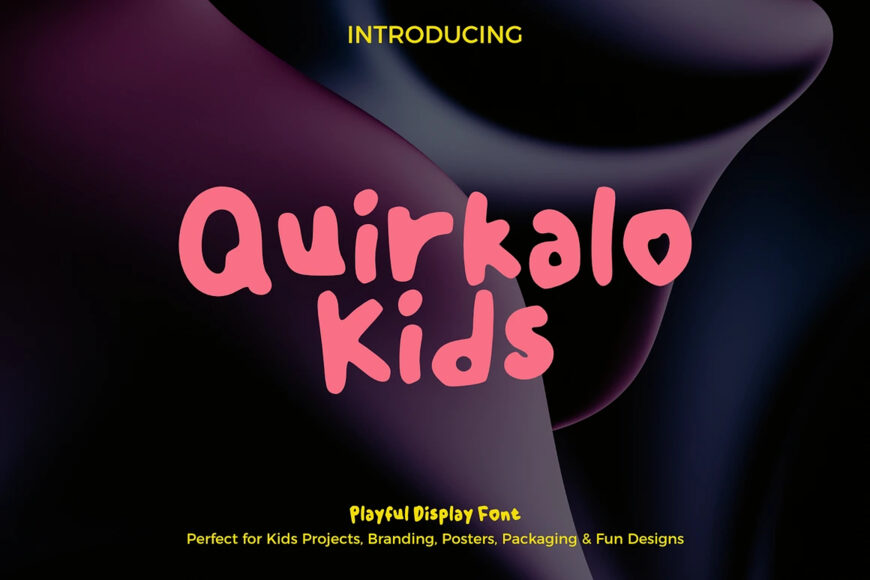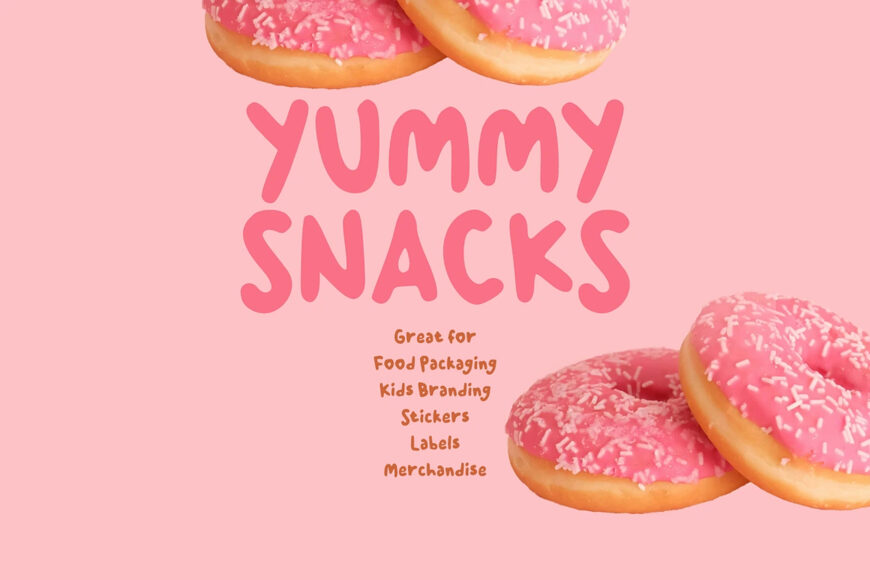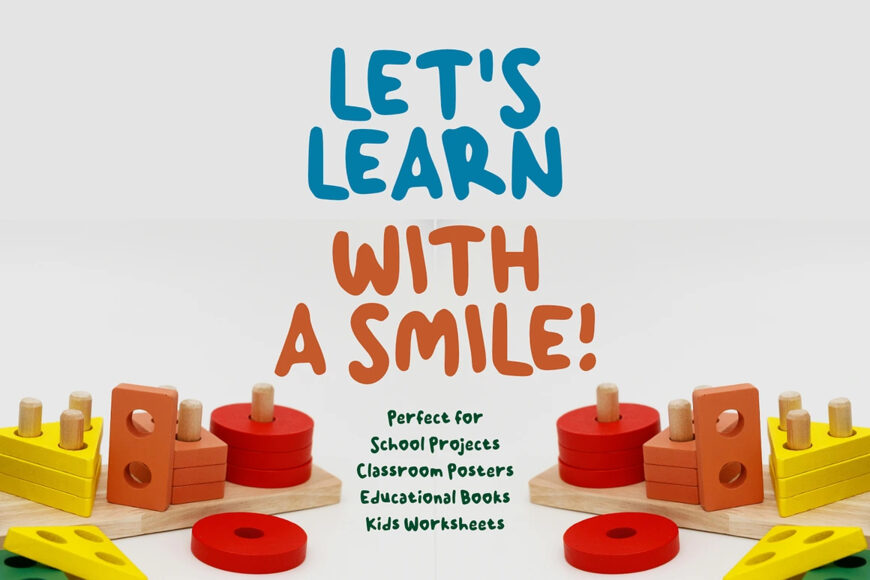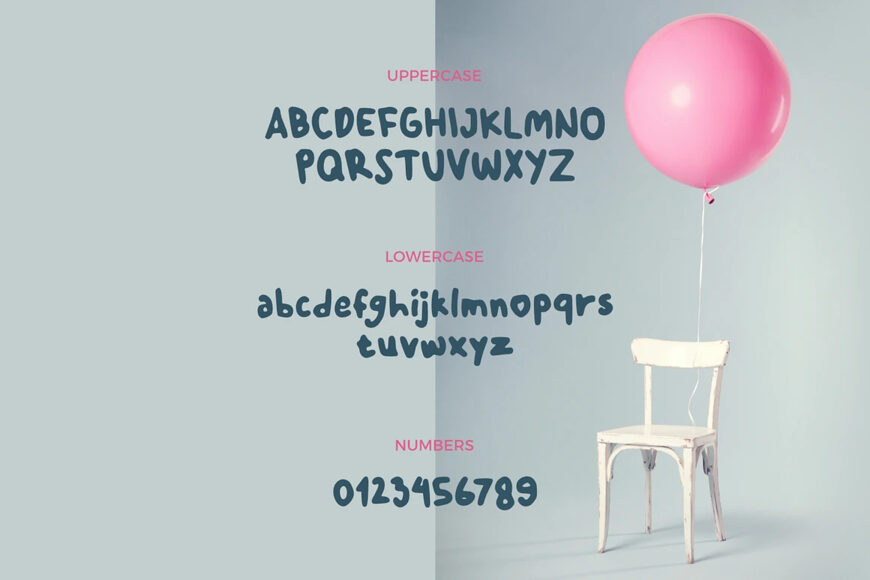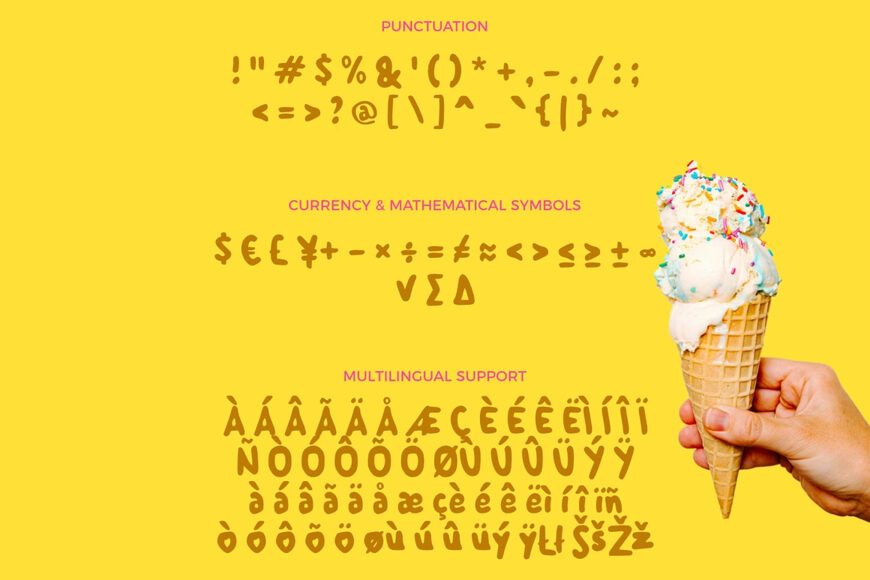
Quirkalo Kids is a playful display font that brings fun, imagination, and creativity to every design. Featuring chunky hand-drawn letterforms with a friendly personality, this font is perfect for children’s books, educational materials, birthday invitations, toy packaging, branding, posters, social media graphics, and playful merchandise.
Its bold and cheerful appearance makes every word stand out while adding a warm, joyful, and approachable feel.